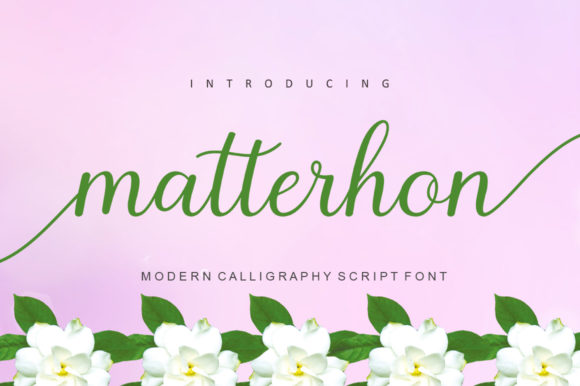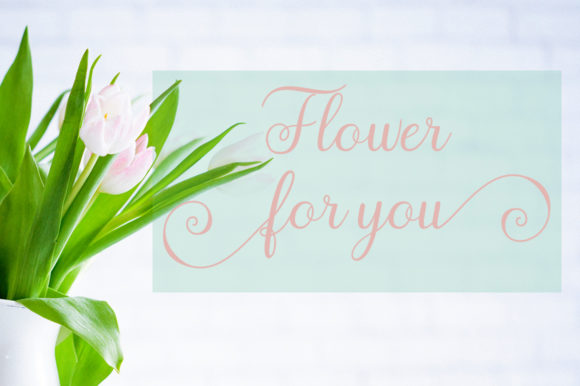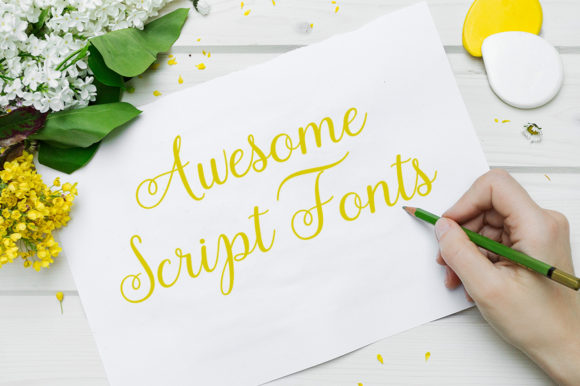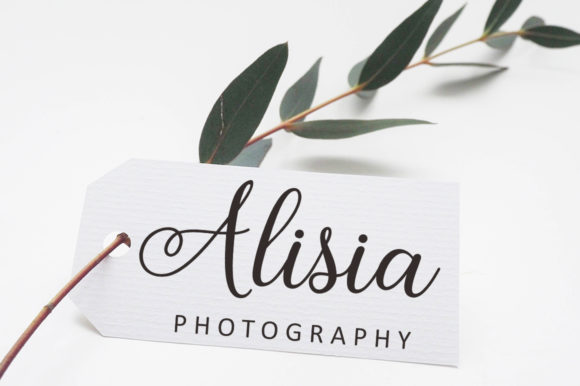
Matterhon Script Font
About Matterhon Script Font
The Matterhon is a modern script font. It’s handwritten and is perfect to add a personal and elegant touch to your logos, product packaging, branding, headlines, labels, book covers, posters, quotes and more!